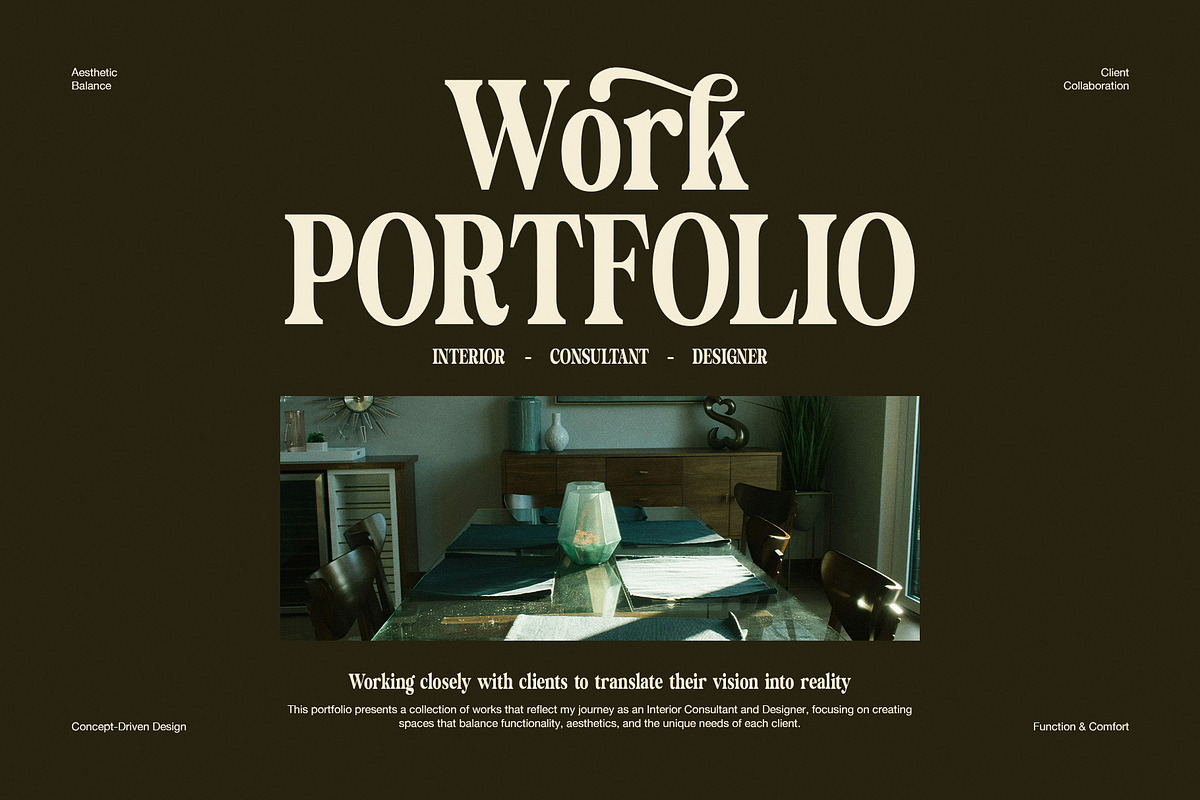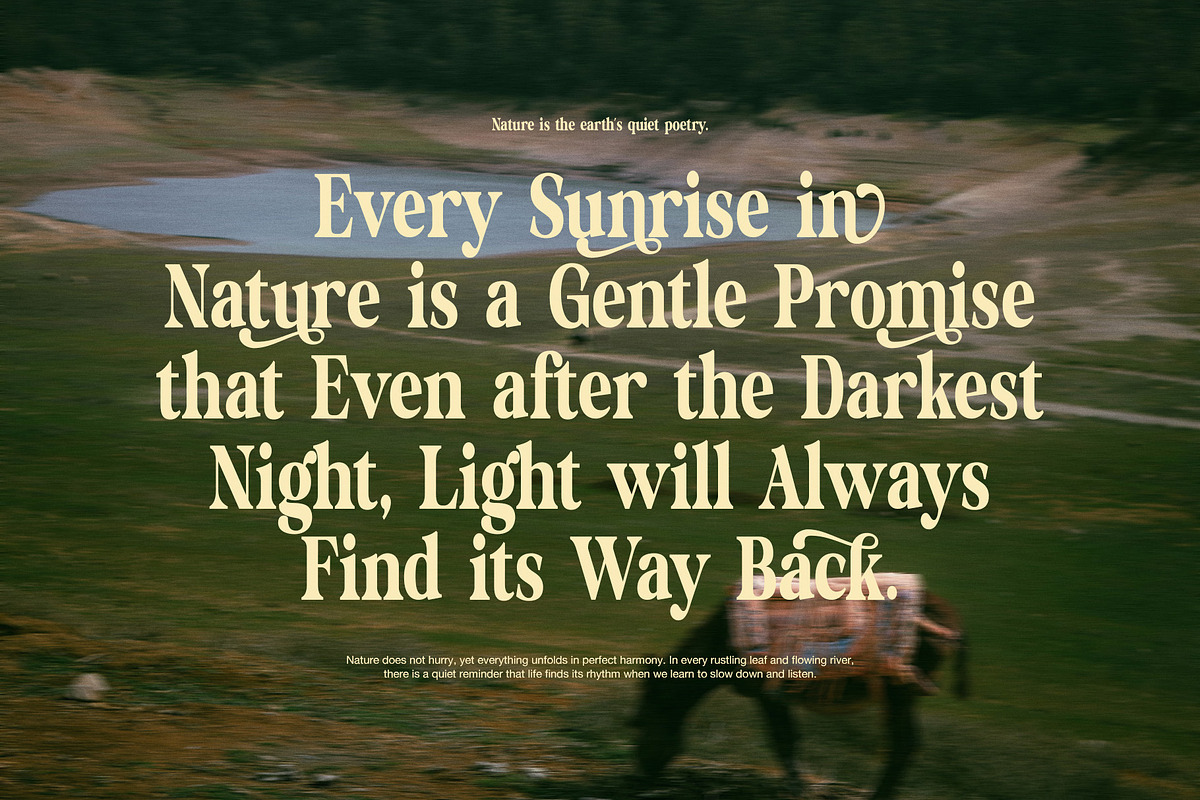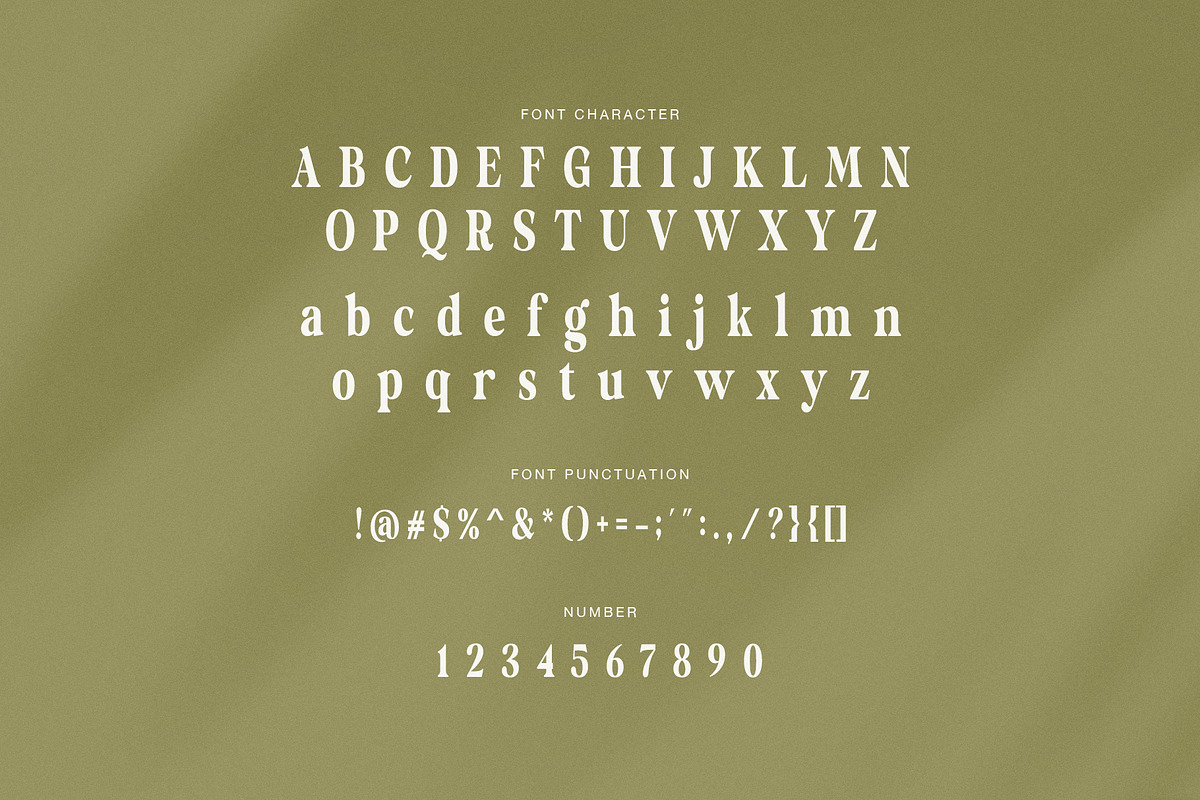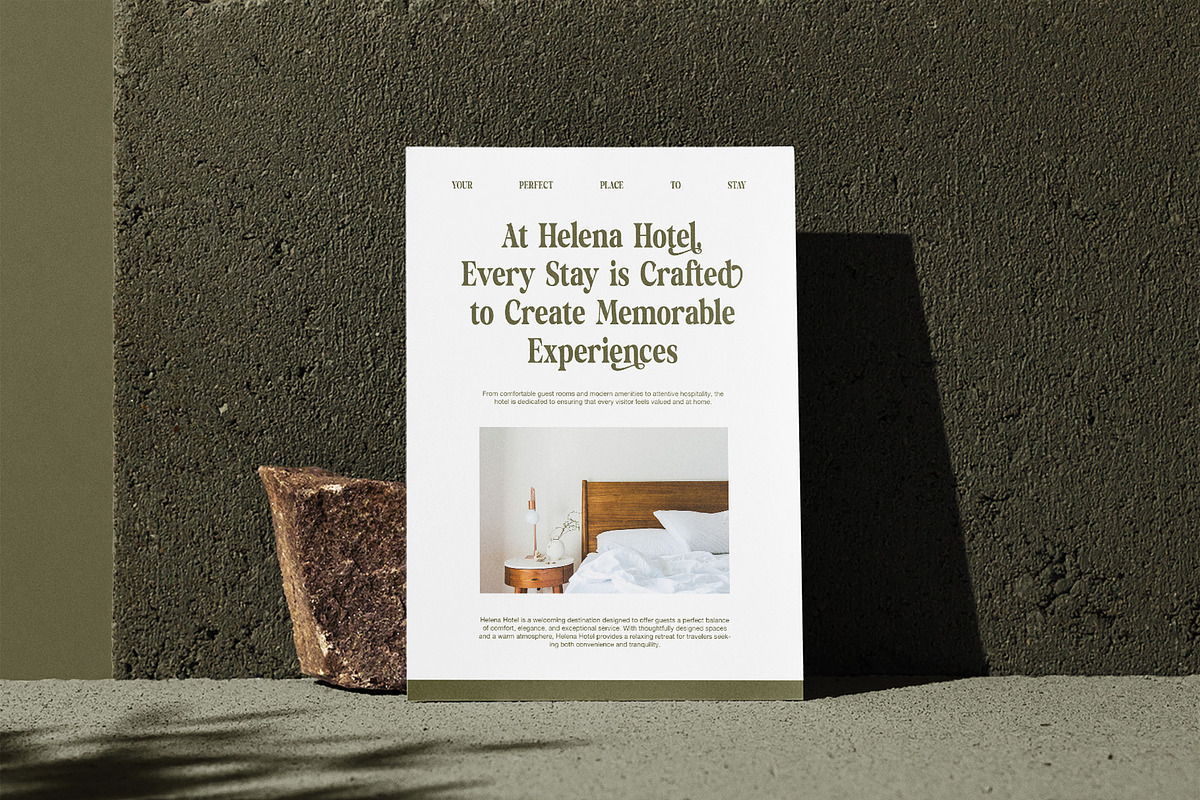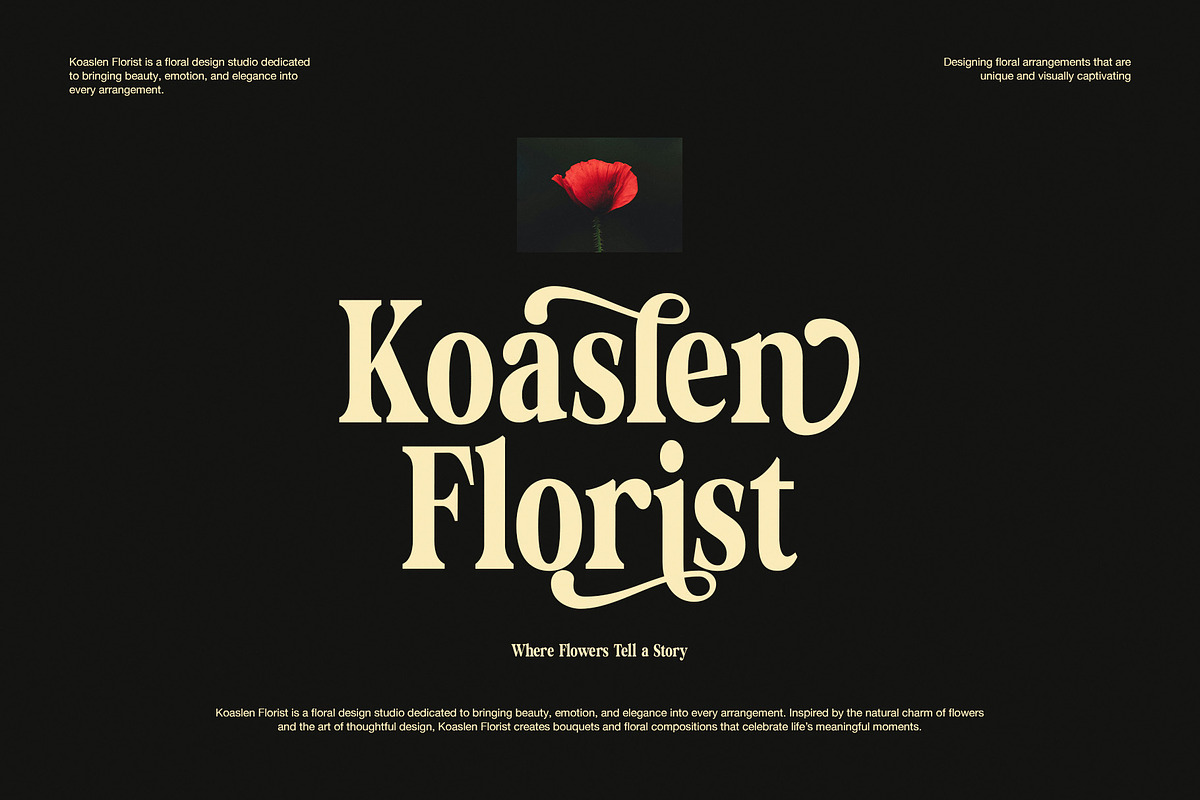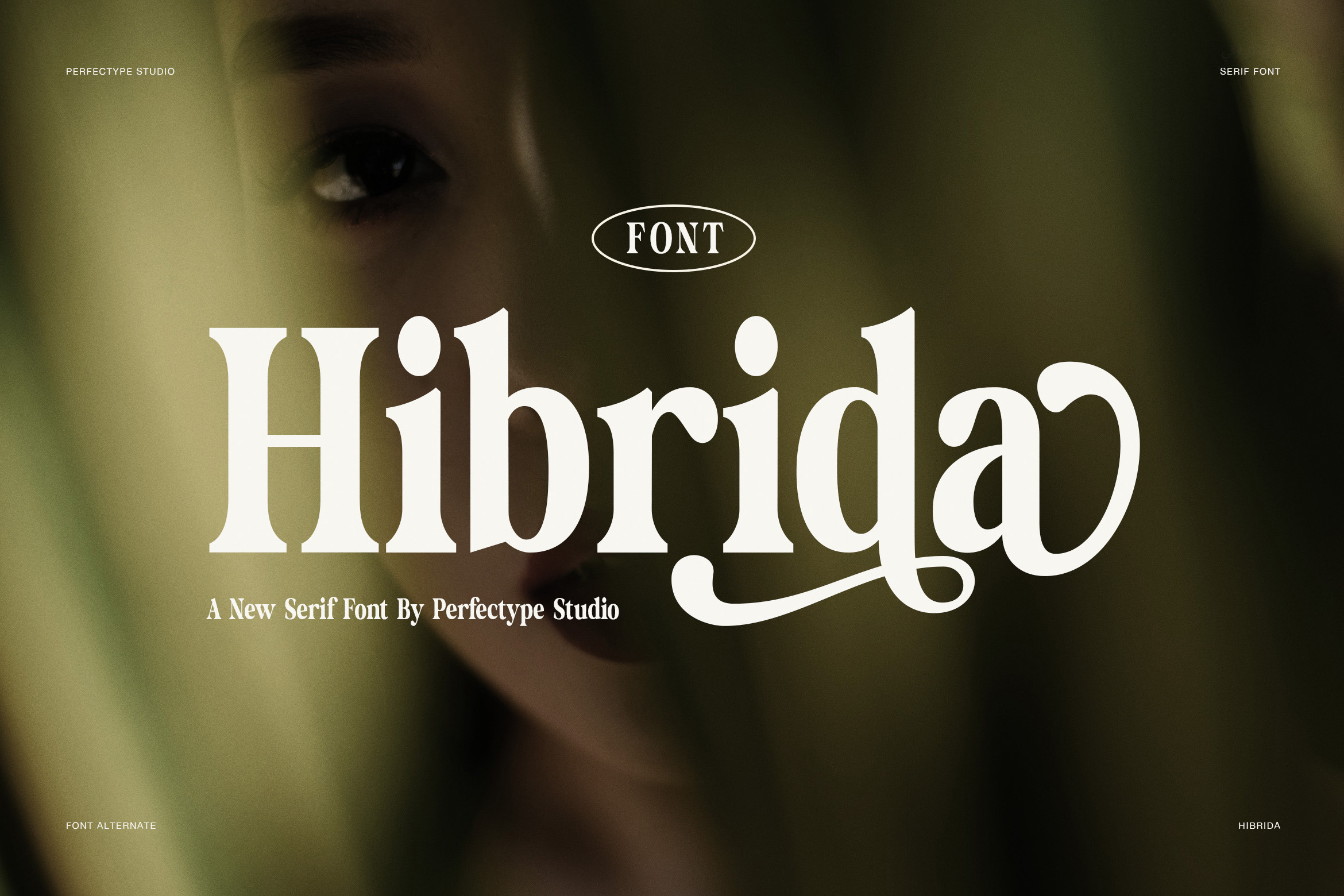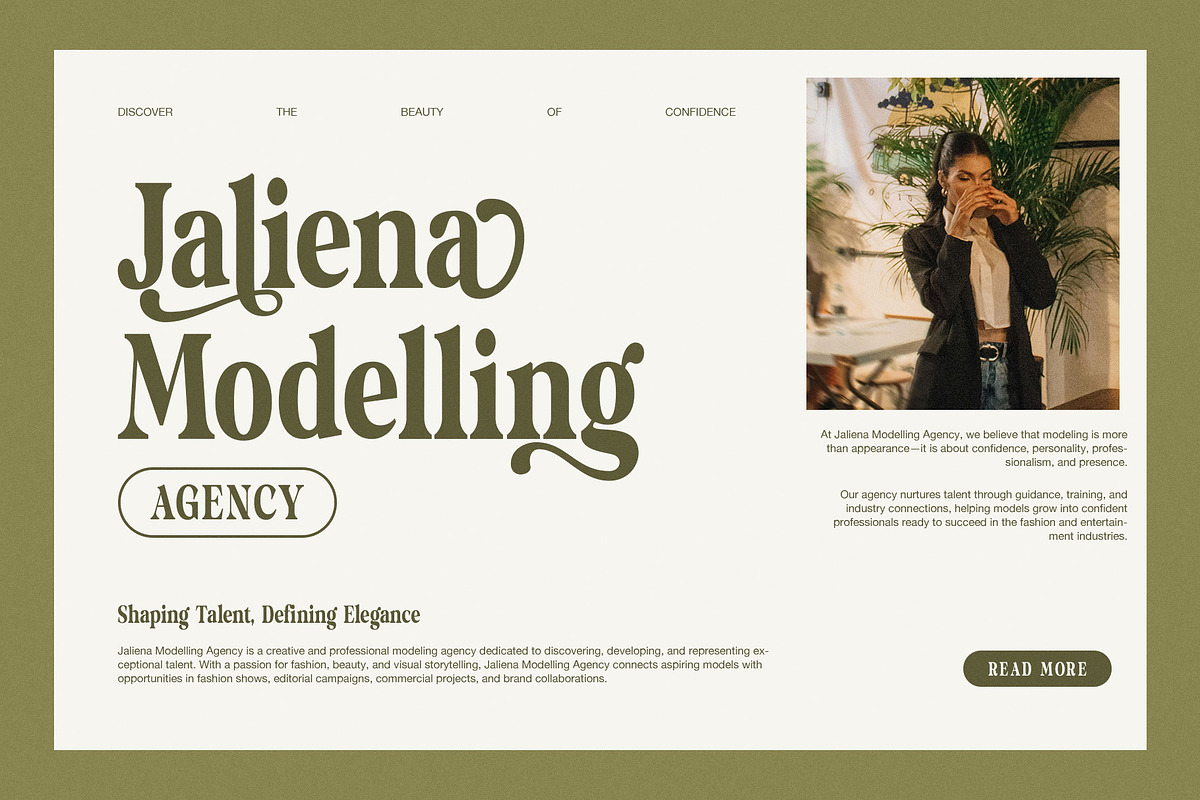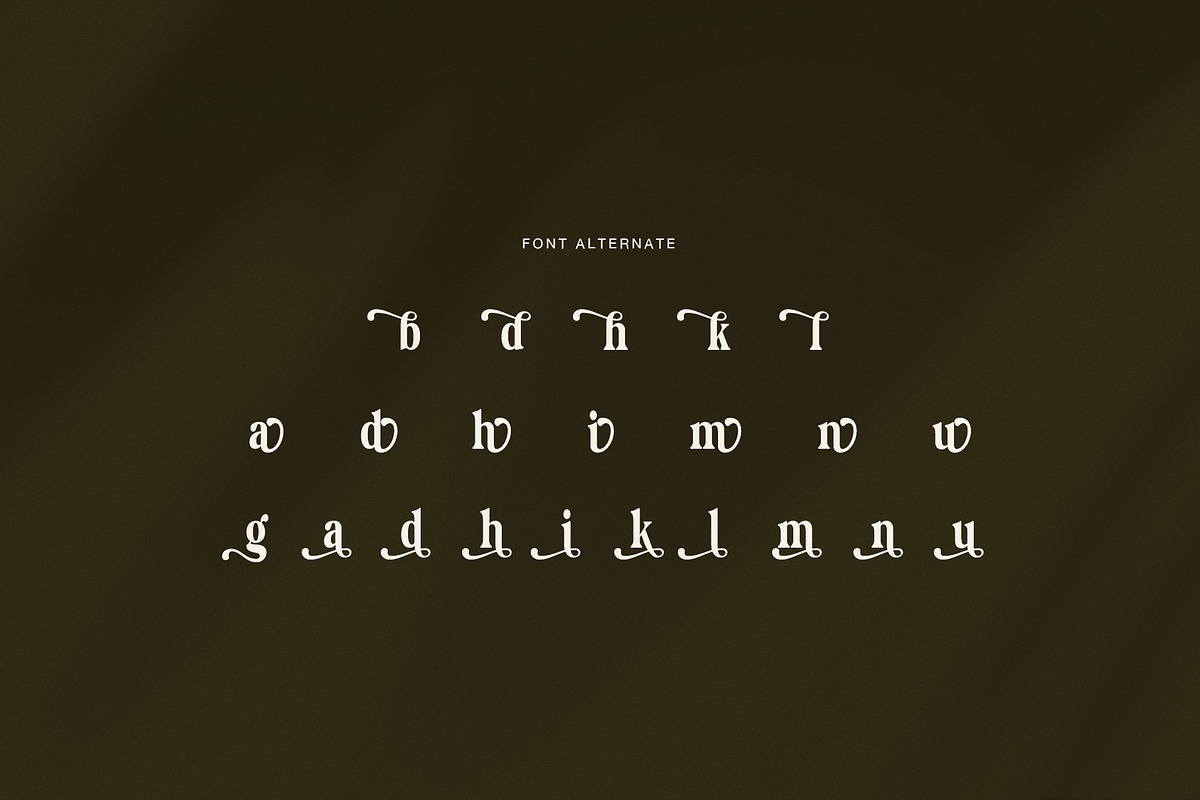
Hibrida Bold Serif Font
Hibrida Bold Serif Font is a striking display typeface with a warm retro spirit and a refined modern finish. It brings together bold serif structure, soft curves, and decorative alternate details. As a result, it feels strong, stylish, and full of personality. At first glance, Hibrida looks bold and confident. However, its graceful swashes and playful endings also give it a softer and more artistic side.
The letterforms are thick, clean, and highly visible. In addition, the rounded shapes make the font feel friendly rather than rigid. This balance helps Hibrida stand out in headlines while still looking polished. Several alternate characters add extra flair, so words can look more custom and expressive. Because of that, this font is a strong choice for branding that wants to feel memorable, lively, and premium.
Hibrida works beautifully across many design themes. From the previews, it feels perfect for florist brands, model agencies, hotels, fashion labels, creative portfolios, posters, and quote designs. Moreover, it fits product packaging, boutique branding, social media posts, beauty campaigns, and editorial layouts. Its bold shape makes text easy to notice, while the stylish alternates add charm and motion.
This serif font is especially useful for designers who want a statement look without losing elegance. The thick body adds power, yet the fine decorative details keep it attractive and distinctive. Therefore, Hibrida can help logos, titles, and short messages feel more alive. It also gives creative projects a vintage touch with a fresh visual mood.
Main Features
- Bold serif style with a retro-modern feel
- Decorative alternate characters
- Strong and clear display letterforms
- Stylish curves with memorable details
- Great for logos, posters, and headlines
- Ideal for fashion, floral, hotel, and branding work
Why Designers Love It
Hibrida gives text a loud and elegant voice at the same time. Even so, it still feels easy to use in many layouts. The bold weight creates impact, while the alternates add beauty and character. For that reason, it is a smart option for designers who want a font that feels both playful and premium.
If you need a serif font that looks bold, stylish, and full of charm, Hibrida Bold Serif Font is a beautiful choice. It helps your work feel more expressive, more polished, and more memorable. So, whether you create for branding, editorial use, packaging, or statement visuals, this font can leave a lasting impression.